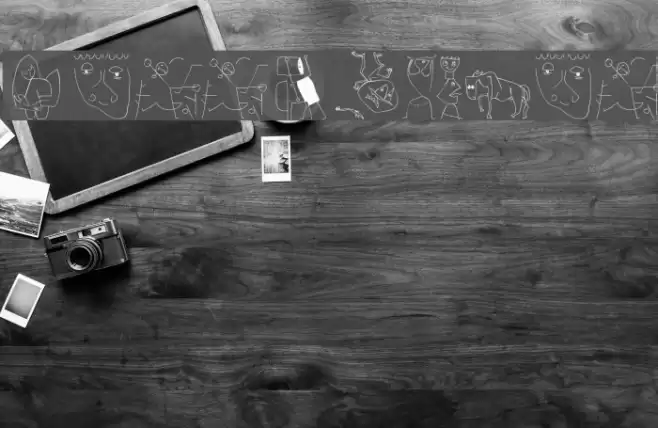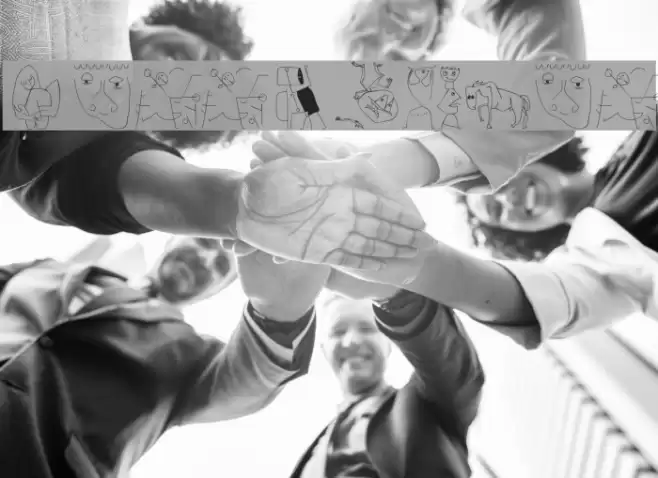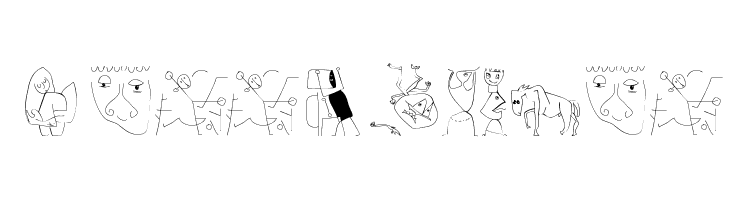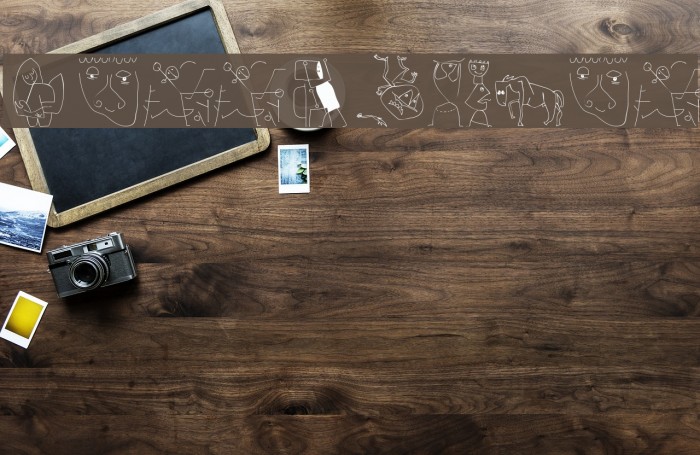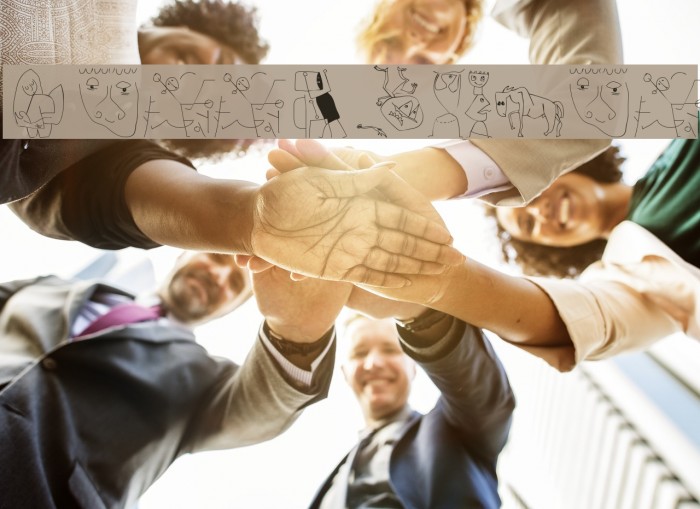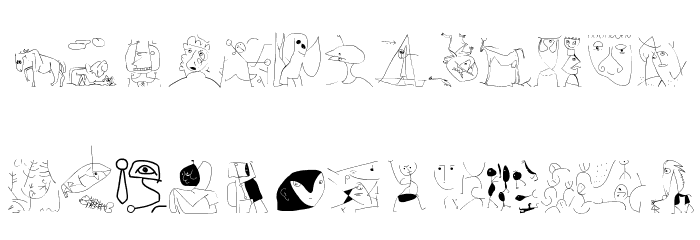
Kleerikale Font
Kleerikale Description
This font is an artistic and abstract representation of characters, where each letter and symbol is depicted as a unique, whimsical illustration. The style is reminiscent of abstract art, with each character featuring intricate line work and imaginative forms. The characters are not uniform, each possessing its own distinct personality and flair, making it more of an art piece than a traditional font. The playful and creative nature of the design suggests a focus on visual expression rather than readability, making it suitable for artistic projects or creative displays.
An abstract, artistic font with whimsical, illustrative characters from Uncategorized fonts.
- Proposed Projects: Ideal for art projects, creative displays, posters, or any work where visual impact and creativity are prioritized over readability.
- Overall Style: Artistic, Abstract
- Use Case: Artistic displays, Creative projects